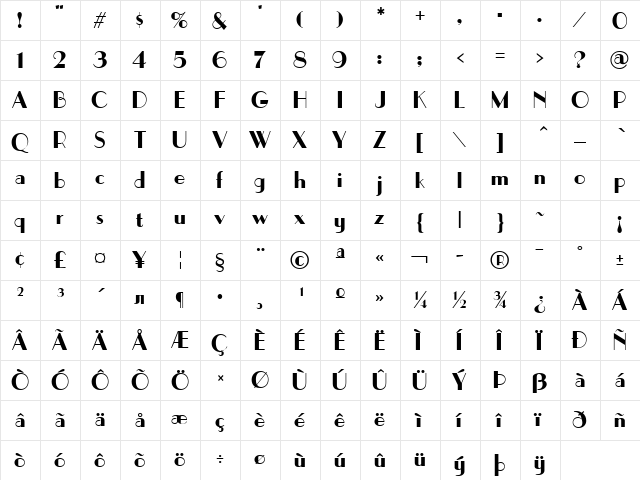
PictonGraphic Regular Font Preview
PictonGraphic Regular
Design Context for PictonGraphic Typeface
PictonGraphic is a composed and adaptable typeface that performs quietly and consistently across a wide range of design contexts.